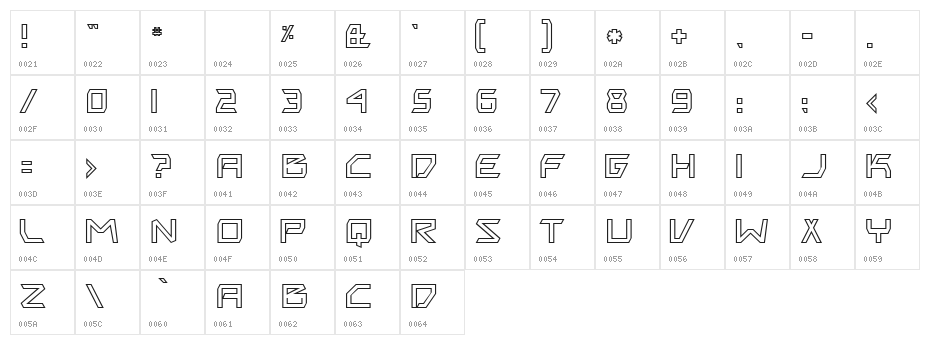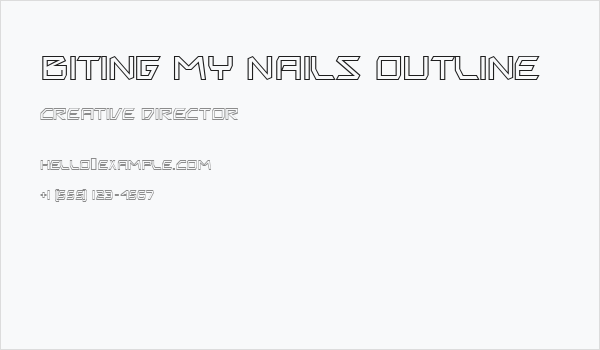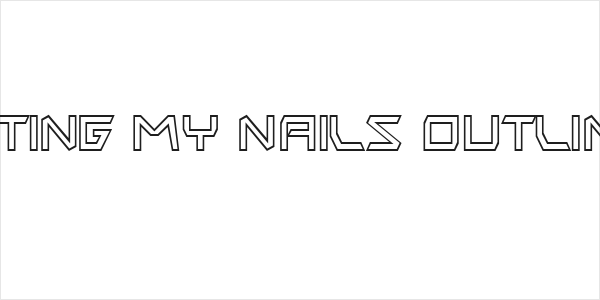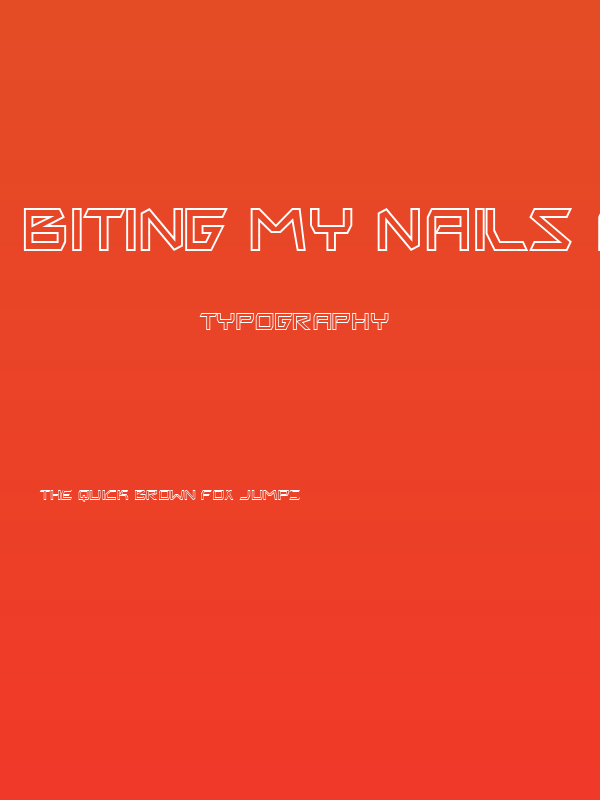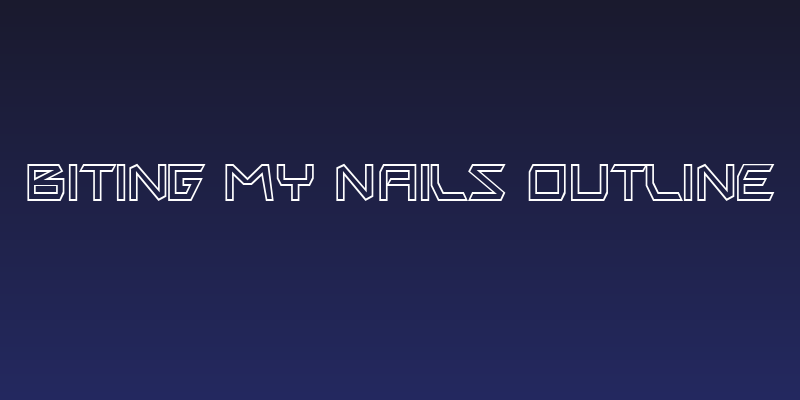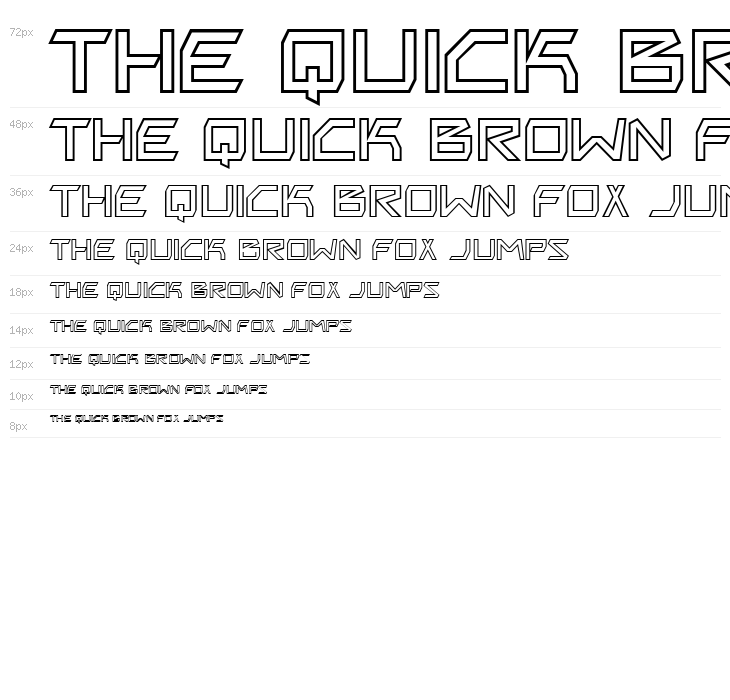
Biting My Nails Outline Font
Biting My Nails Outline Description
This font features a bold, geometric outline style with a futuristic and angular appearance. The characters are constructed with sharp edges and straight lines, creating a sense of precision and modernity. The uppercase and lowercase letters maintain a consistent height, contributing to a uniform look. Numbers and special characters follow the same design principles, ensuring a cohesive visual identity. The outline nature of the font gives it a unique, airy feel, making it suitable for eye-catching designs.
| Proposed Projects | Ideal for sci-fi themed projects, tech branding, posters, and digital artwork. |